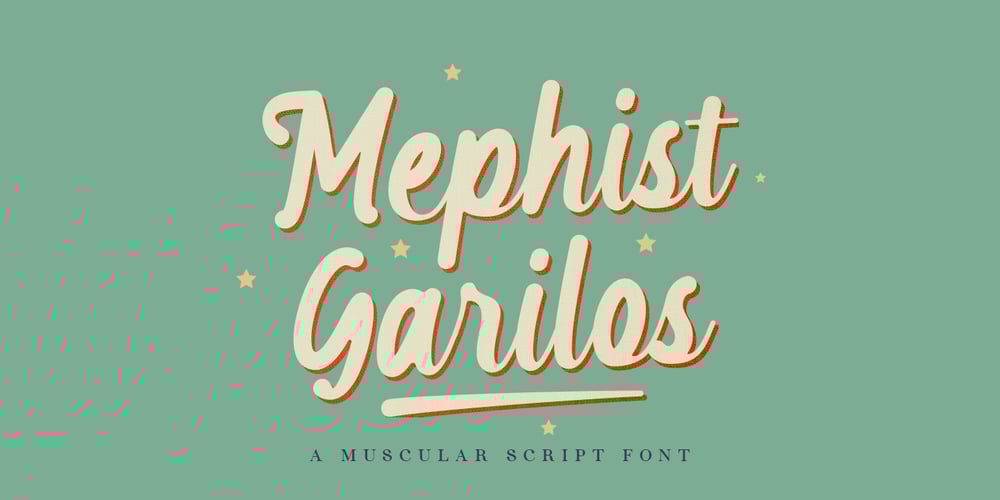
Mephist Garilos Font Family was designed by Dwi Ahidian and published by Lemonthe. Mephist Garilos contains 1 styles and family package options. Mephist Garilos is a muscular script font. Use it to add that special retro touch to any design idea! It is perfect for many different projects such as logos & branding, product designs, labels, and much more!